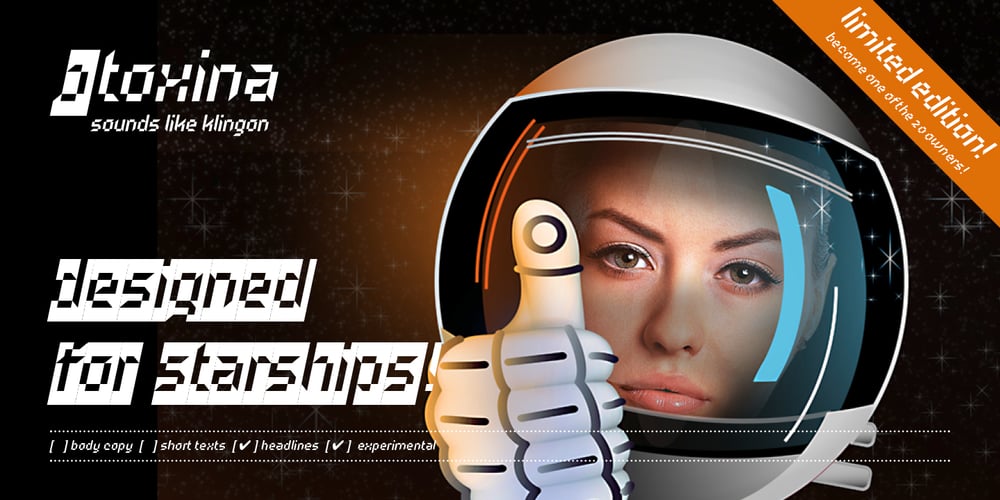
Btoxina Font Family was designed by Filippo Salmina and published by FSdesign-Salmina. Btoxina contains 1 styles and family package options. Btoxina is a free interpretation of the theme pixel font. With its technological feeling, it reflects the spirit of our age. By designing the font Filippo Salmina, the author, has been inspired by the signage used in starships. Btoxina is grid-based but it differs from classical screen fonts by the use of diagonal lines. It is characterized by the renouncement of the use of capital letters in favor of using negative letters and by the automatic generation of ligatures. The typeface is available in two different styles: Atoxina (regular) and Btoxina (italic). Btoxina is especially suited for headlines in cool or experimental typography; be careful though, this font is toxic, we deny any responsibility for its use!